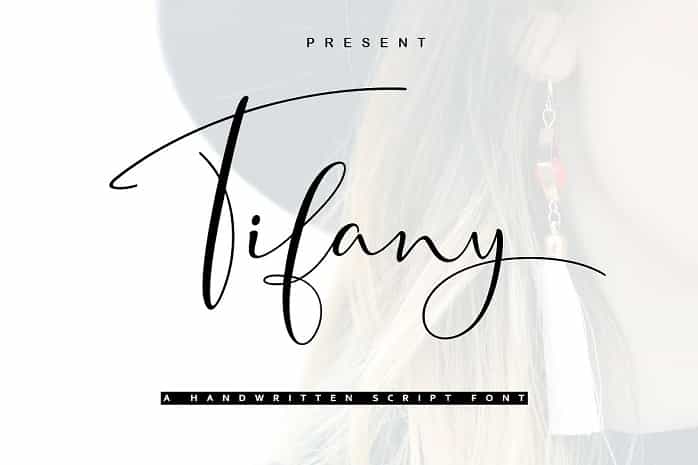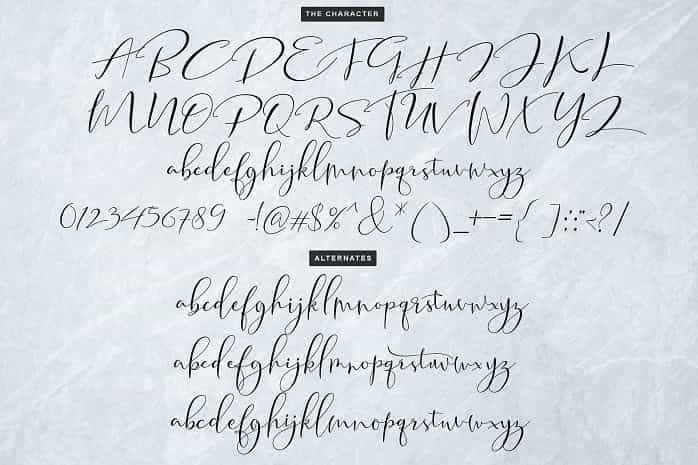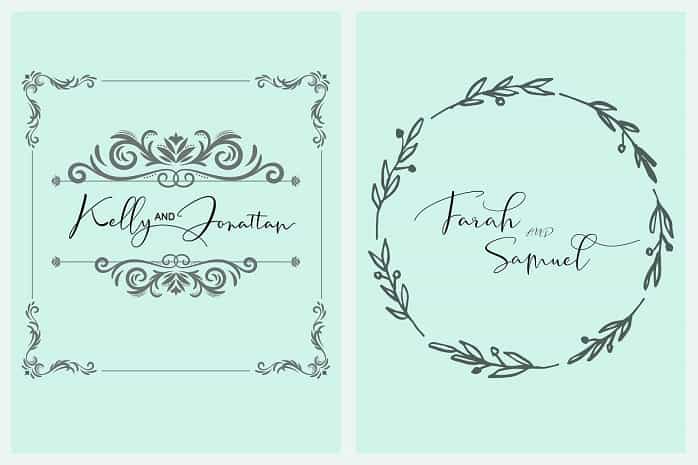
Introducing Tifany Script is modern calligraphy script font, every single letters have been carefully crafted to make your text looks beautiful. With modern script style this font will perfect for many different project, example: invitations, greeting cards, posters, name card, quotes, blog header, branding, logo, fashion, apparel, letter, stationery and more! Tifany Script come with 590+ glyphs. The alternative characters were divided into several OpenType features such as Swash, Stylistic Sets, Stylistic Alternates, Contextual Alternates.